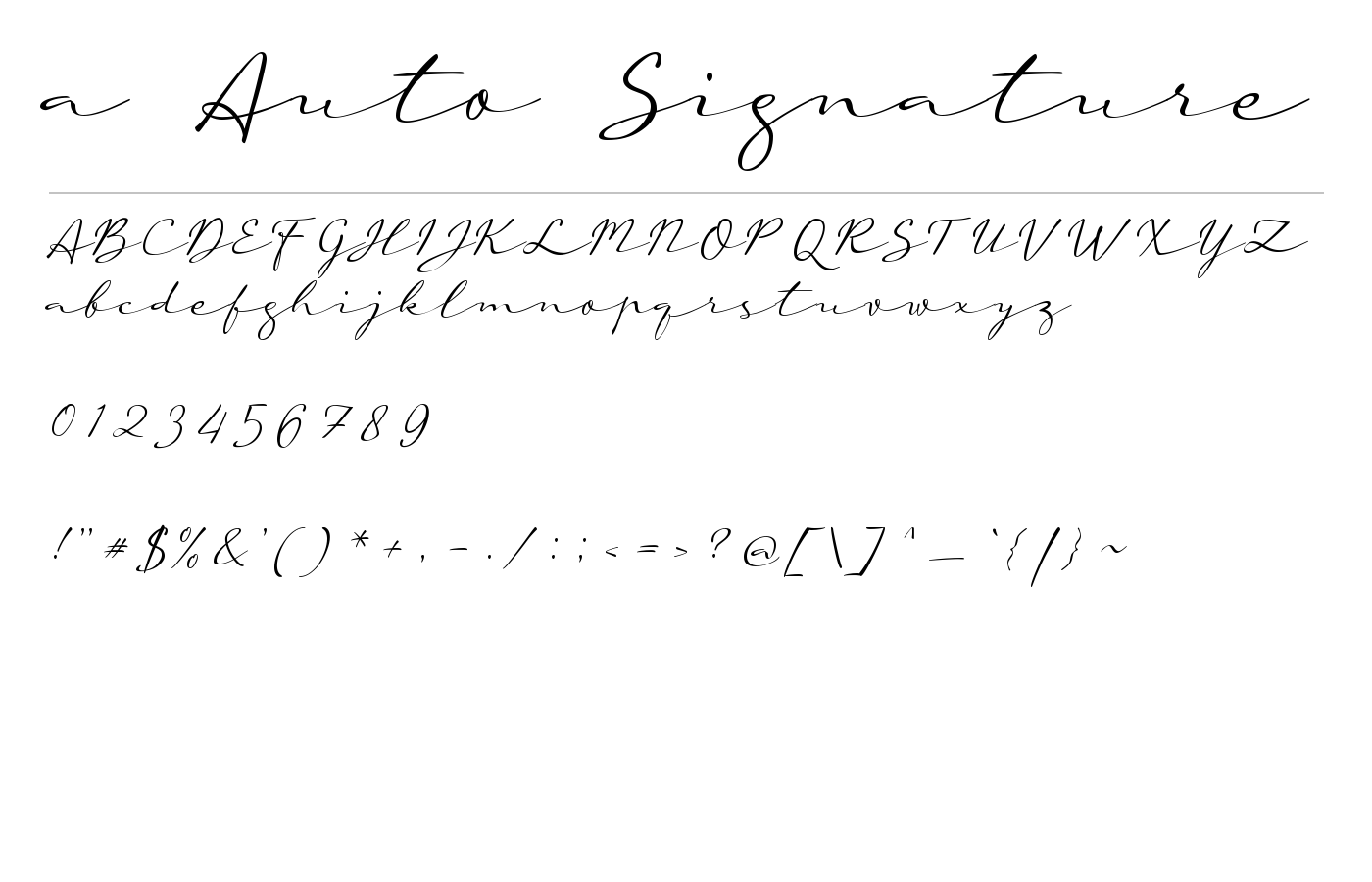
Auto Signature Font is a delicate and elegant script typeface that mimics natural handwriting with smooth, flowing strokes. Its thin weight and high x-height give it an airy, refined feel, making it ideal for personal branding, invitations, and luxury logos where a sophisticated yet approachable touch is desired. This font works best in headlines and decorative text, adding a graceful and stylish flair without overpowering the overall design.
a Auto Signature Font
About a Auto Signature Font